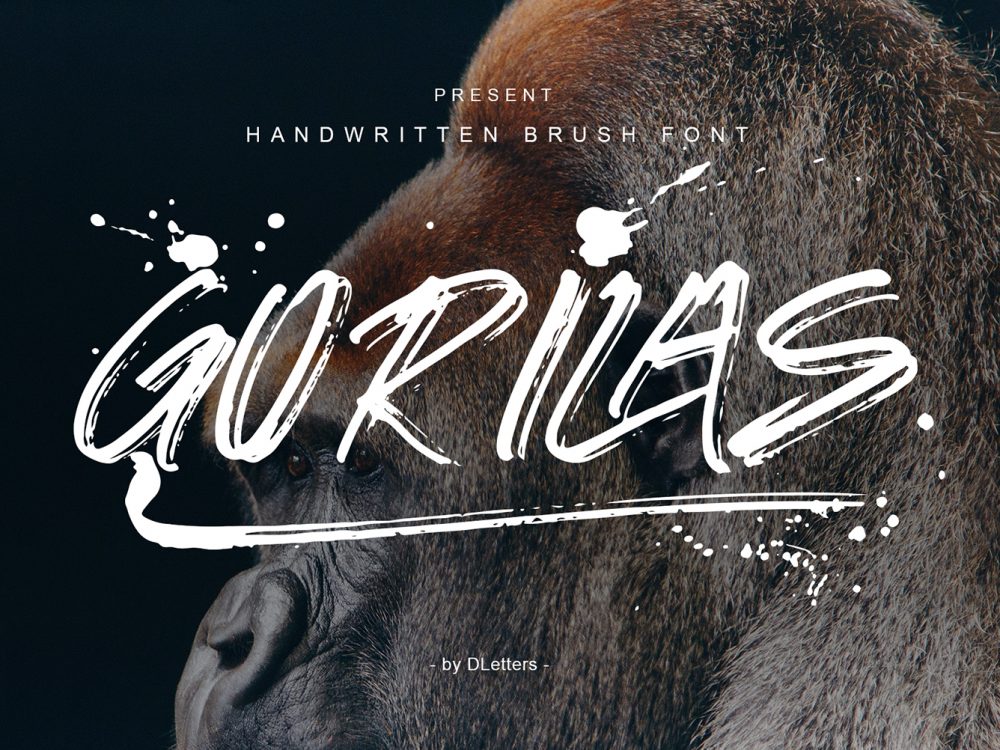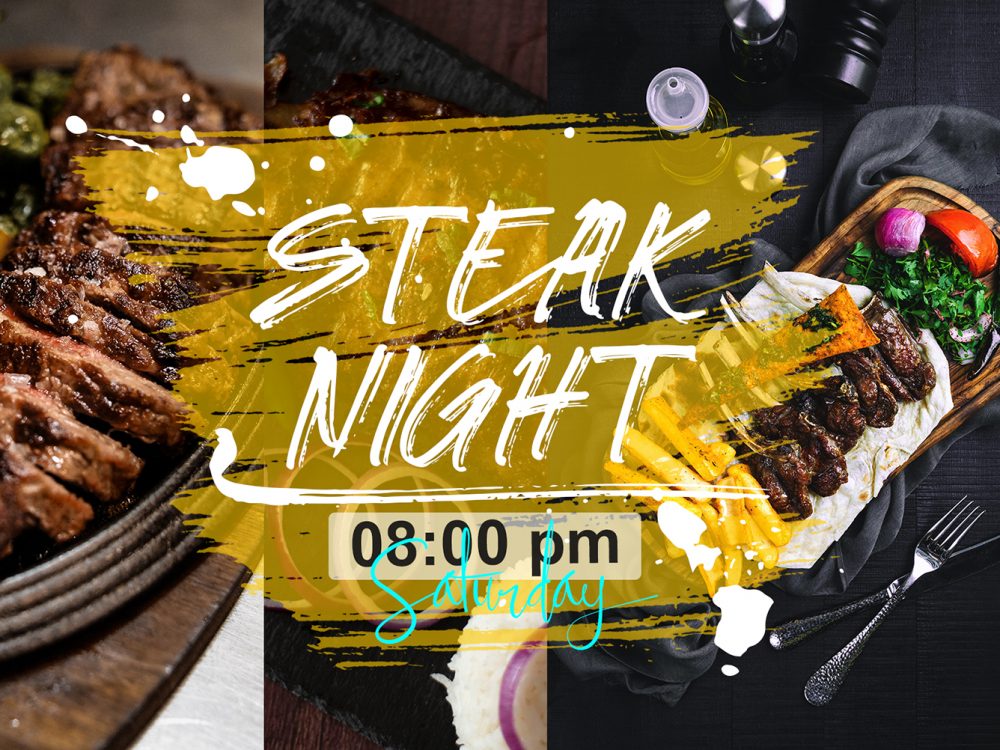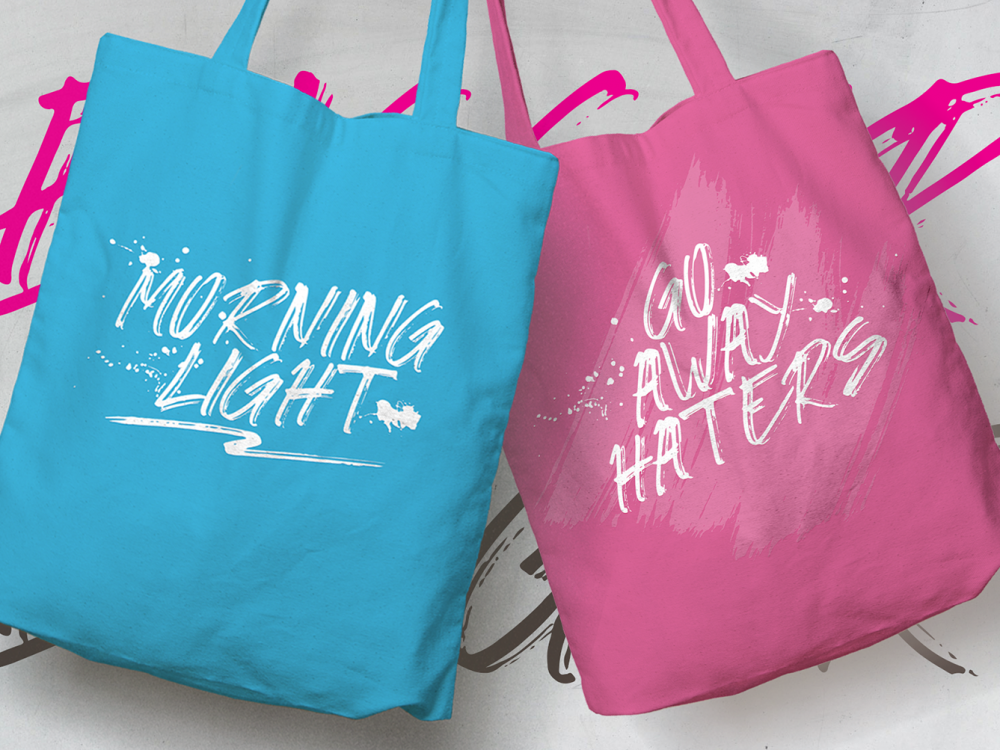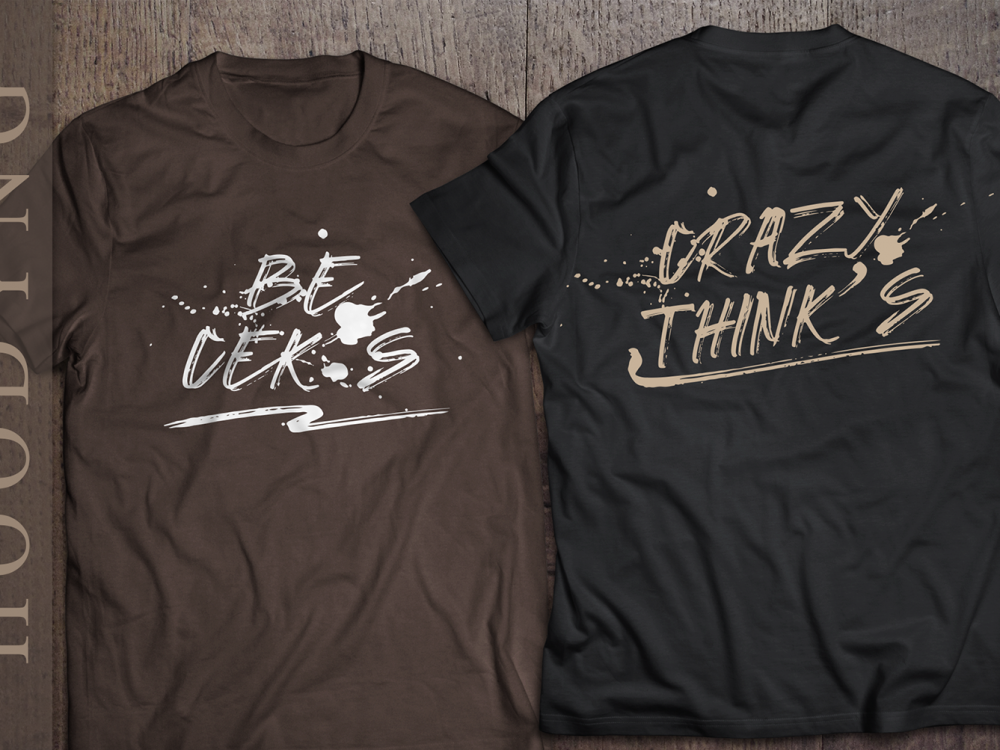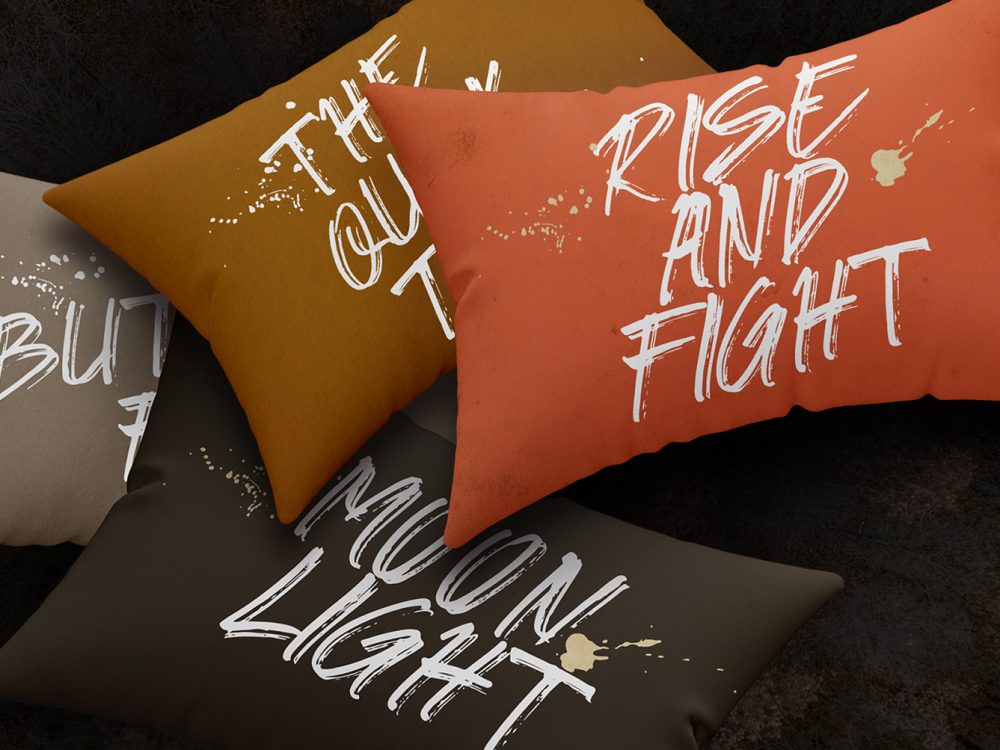
Gorilas Free Font
Gorilas Free Font is an interesting modern scripting font that mimics writing with a brush and features a modern style. This font is very suitable for creating various projects that require a scripted brush font. Use this font to create memorable romantic posters, wedding invitations, greeting cards, branding, flyers, t-shirt and pillow prints, and more. Improve your professional level using this font. If you like it don’t forget to check out the full version.